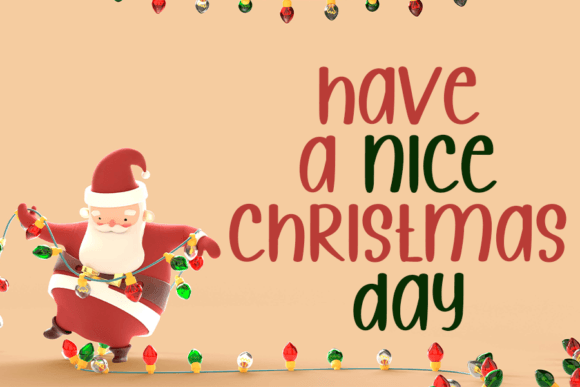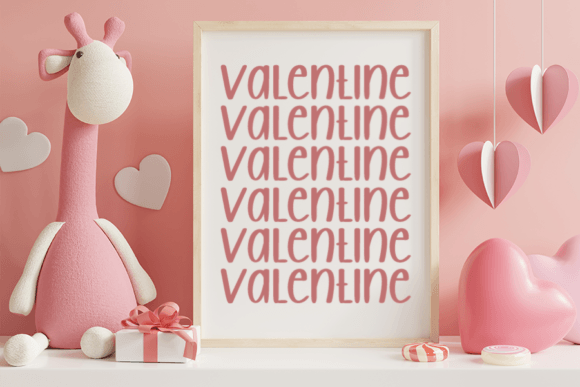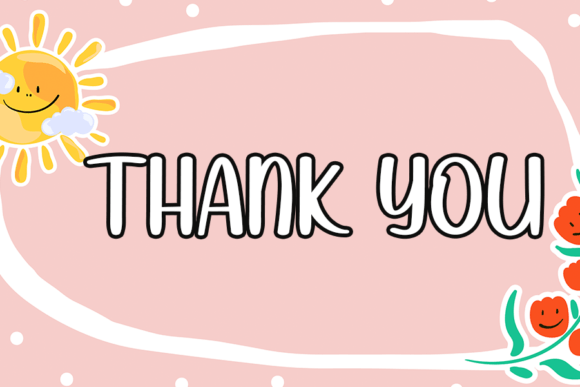
Introducing Body Font: The Playful and Whimsical Typeface for Unique Designs
Are you tired of using the same old fonts in your designs? Do you want to add a touch of personality and whimsy to your projects? Look no further than Body Font, a cute handwritten font that’s sure to bring a smile to your face. With its irregular and playful letterforms, Body Font is the perfect choice for designers and crafters who want to create unique and eye-catching designs.
The Personality of Body Font
Body Font has a fun and quirky personality that’s hard to ignore. Its irregular letterforms create a sense of whimsy and individuality, making it perfect for designs that require a touch of uniqueness. Whether you’re creating a logo, a poster, or a social media graphic, Body Font is sure to add a charming and personal feel to your project.
The Benefits of Using Body Font
So why choose Body Font for your next design project? Here are just a few benefits of using this playful typeface:
- Unique and eye-catching: Body Font’s irregular letterforms make it stand out from more traditional fonts, adding a touch of personality to your designs.
- Handwritten style: Body Font’s natural, handwritten style adds a charming and personal feel to any project, making it perfect for designs that require a human touch.
- Versatile: Body Font is versatile enough to be used in a wide range of designs, from logos and posters to social media graphics and more.
- Easy to read: Despite its playful nature, Body Font is easy to read, making it perfect for designs that require a clear and concise message.
Using Body Font in Your Designs
So how can you use Body Font in your designs? Here are a few ideas to get you started:
- Logos: Use Body Font to create a unique and eye-catching logo that reflects the personality of your brand.
- Posters: Add a touch of whimsy to your posters with Body Font, making them stand out from the crowd.
- Social media graphics: Use Body Font to create engaging and shareable social media graphics that showcase your brand’s personality.
- Invitations: Add a personal touch to your invitations with Body Font, making them feel more special and unique.
Tips for Pairing Body Font with Other Fonts
When pairing Body Font with other fonts, it’s essential to choose fonts that complement its playful and whimsical nature. Here are a few tips to keep in mind:
- Pair with a sans-serif font: Pairing Body Font with a sans-serif font can create a nice contrast and add visual interest to your design.
- Choose a font with a similar feel: If you want to create a cohesive look, choose a font that has a similar feel to Body Font, such as a handwritten or script font.
- Experiment with font sizes: Don’t be afraid to experiment with different font sizes to create visual hierarchy and add emphasis to your design.
Body Font is a unique and playful typeface that’s perfect for designers and crafters who want to add a touch of personality to their designs. With its irregular and playful letterforms, Body Font is sure to bring a smile to your face and make your designs stand out from the crowd. Whether you’re creating a logo, a poster, or a social media graphic, Body Font is the perfect choice for designs that require a touch of whimsy and individuality.